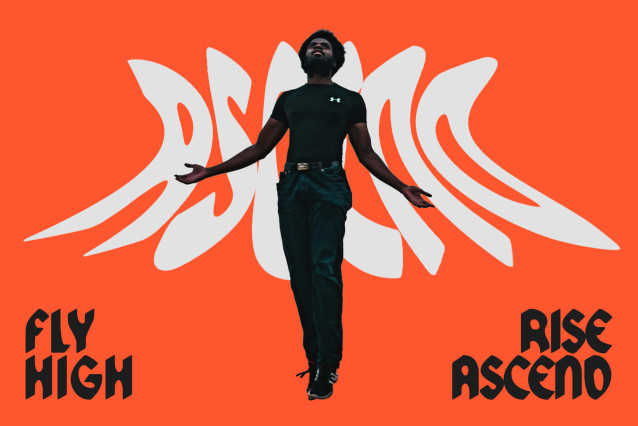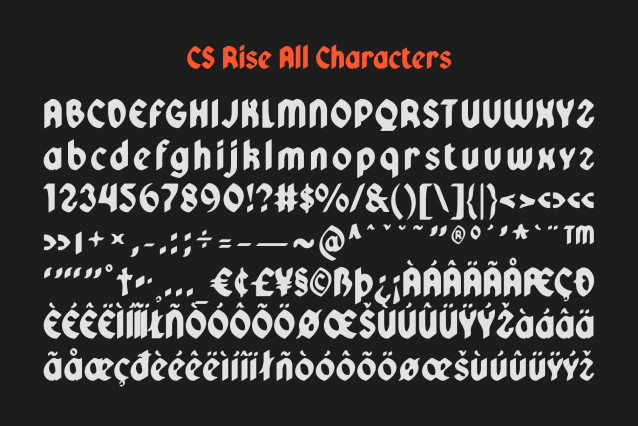
CS Rise Drawn Font
CS Rise Drawn Font is a modern blackletter display font that combines the traditional gothic structure of old manuscript lettering with a bold, updated visual style. Its broken strokes and angular forms evoke classic calligraphic heritage, while the overall composition embraces a contemporary, daring aesthetic ideal for making bold typographic statements.